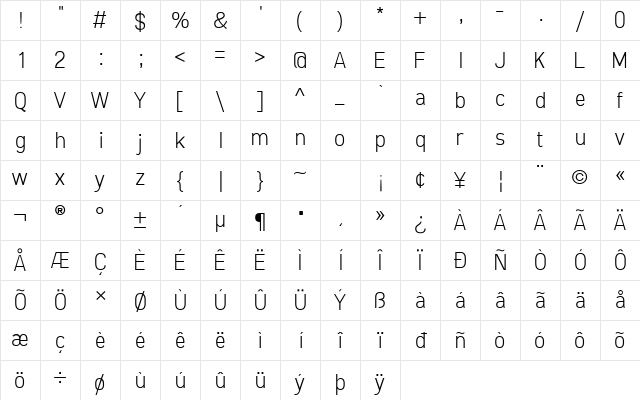
Freeroad Light is a composed and adaptable typeface that performs quietly and consistently across a wide range of design contexts. Its slender proportions lend an understated elegance to any composition.